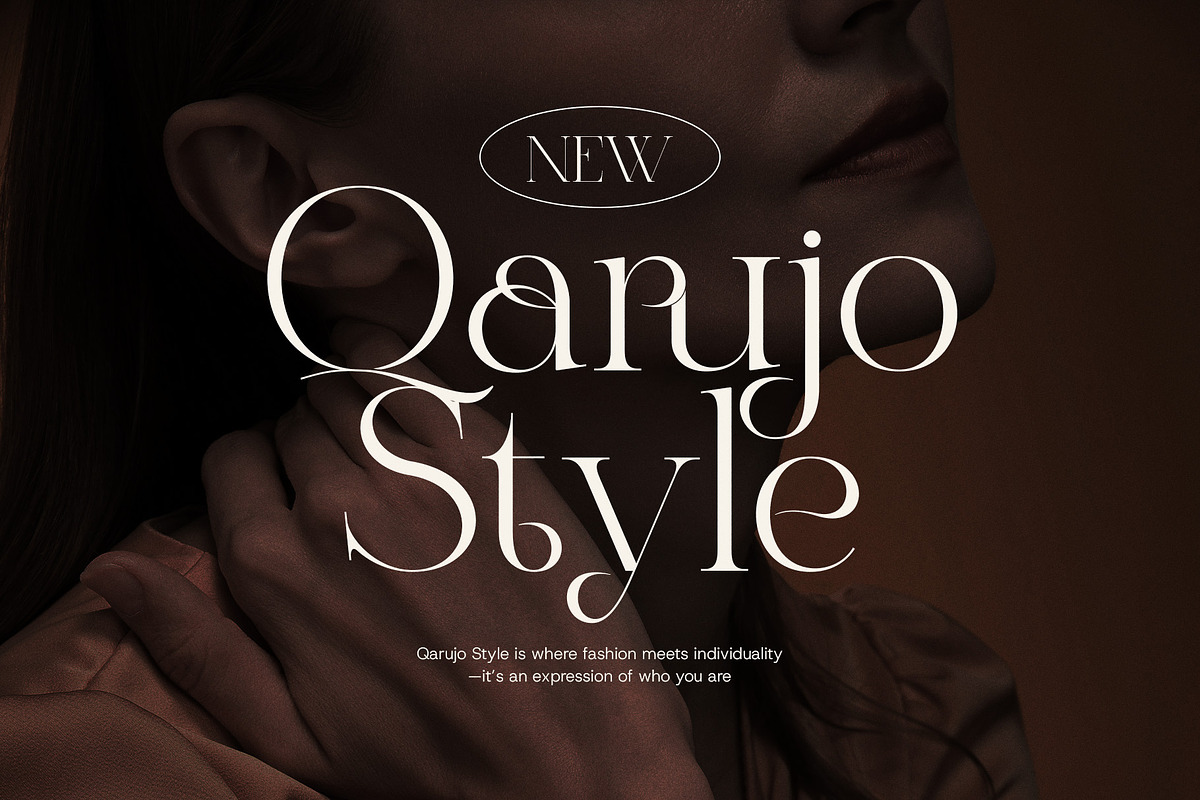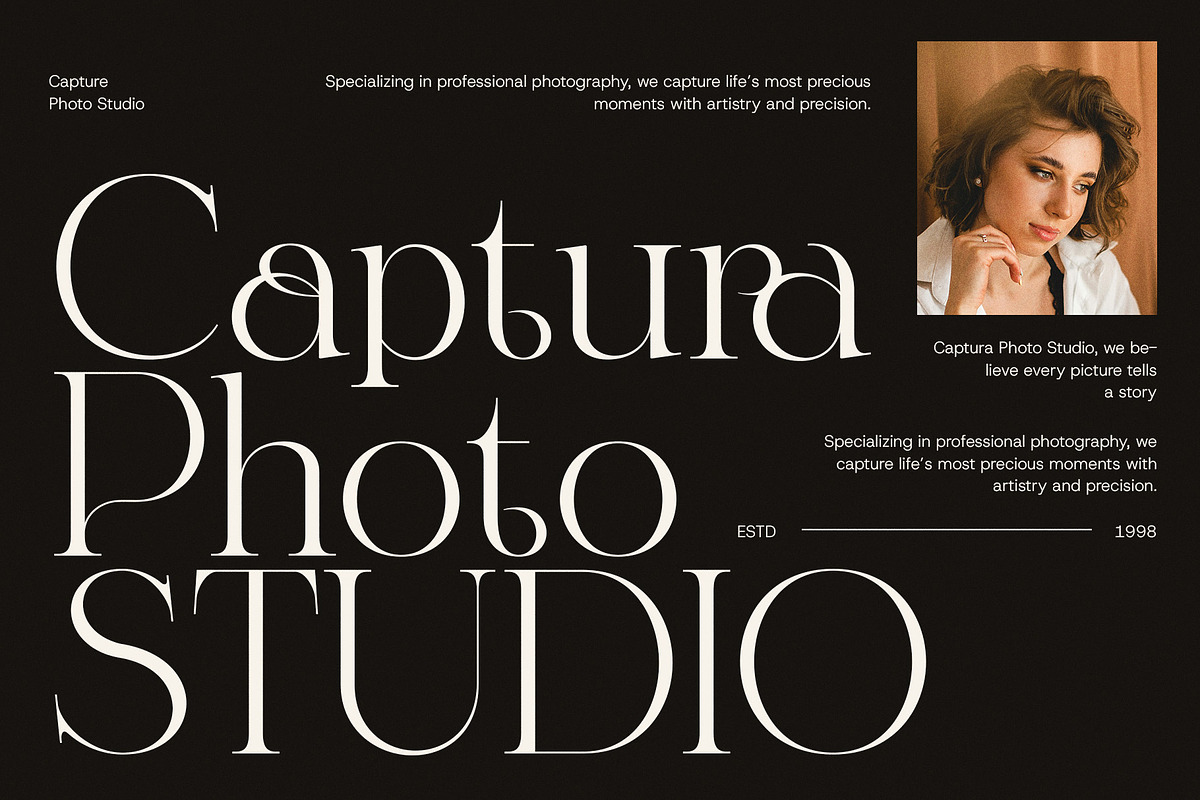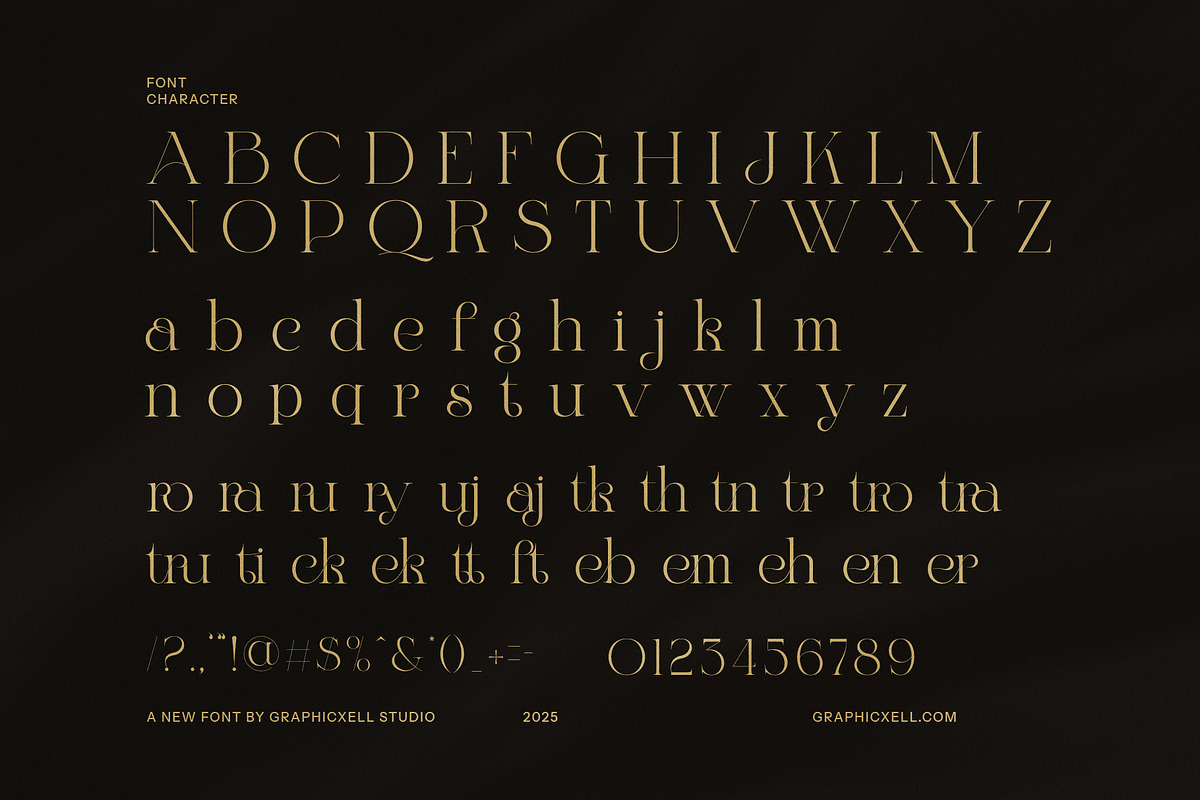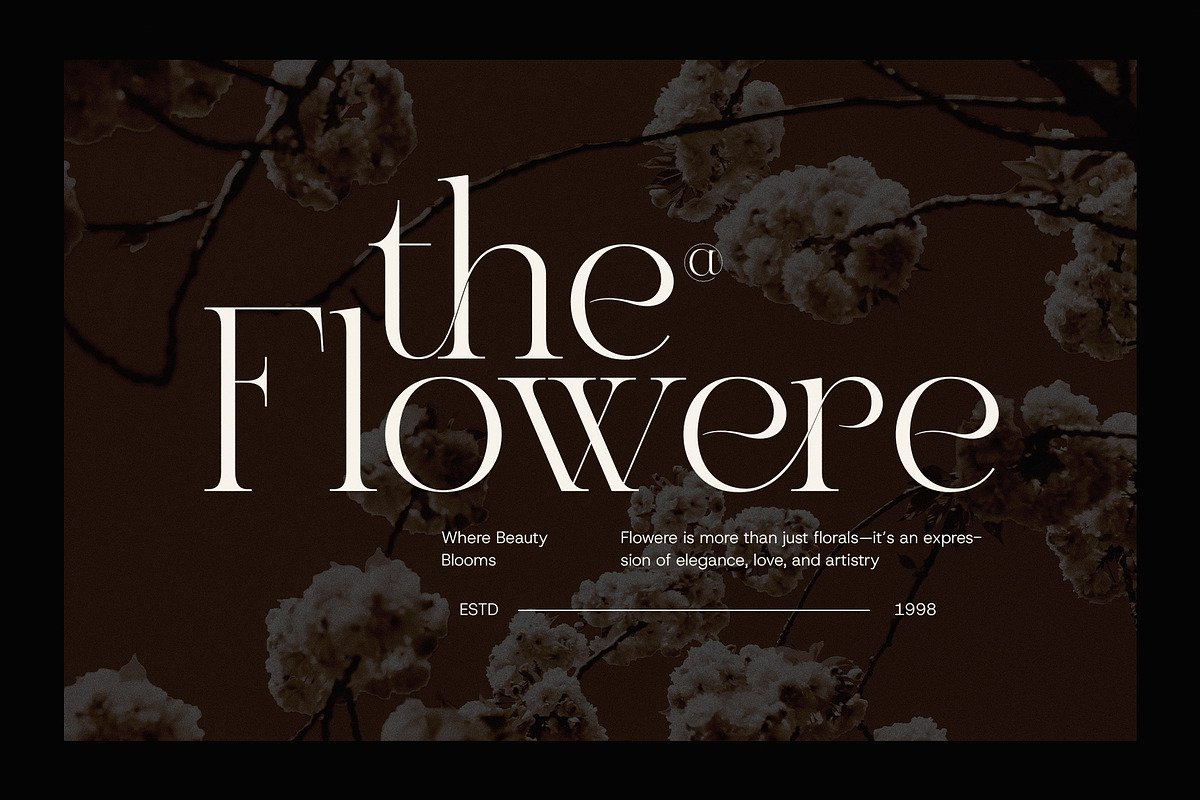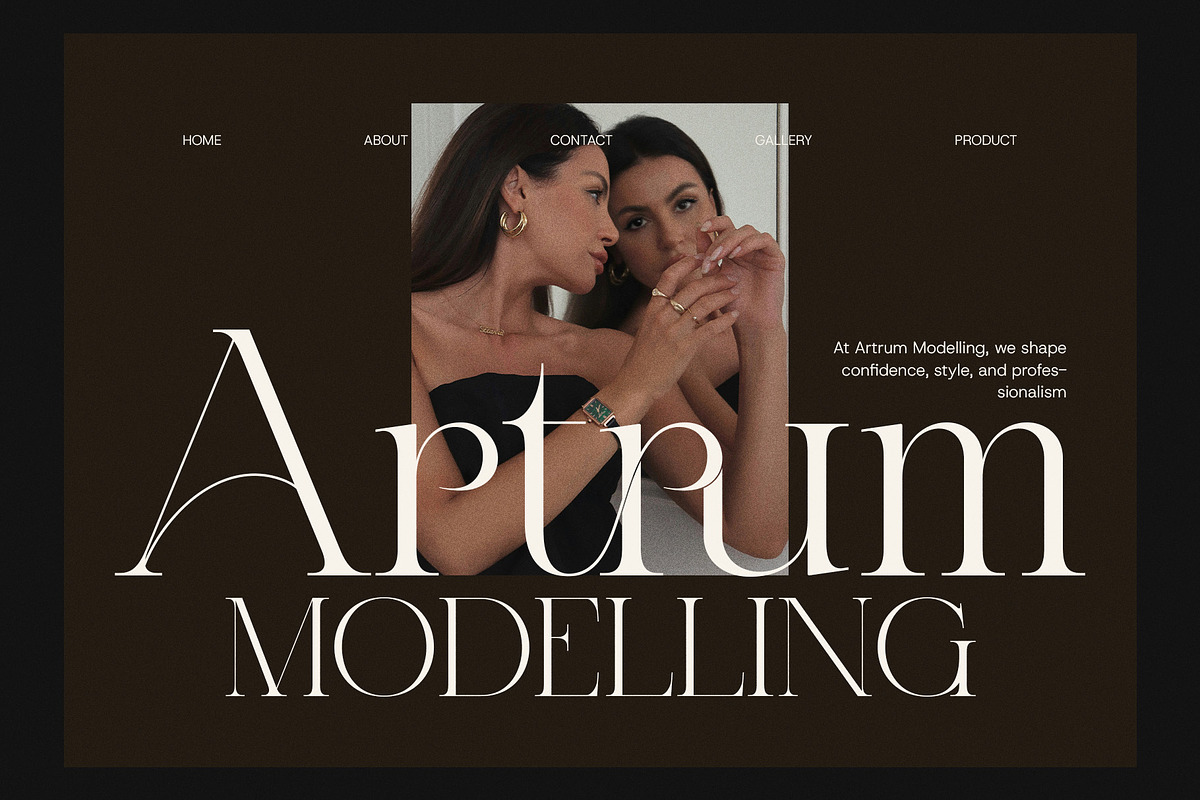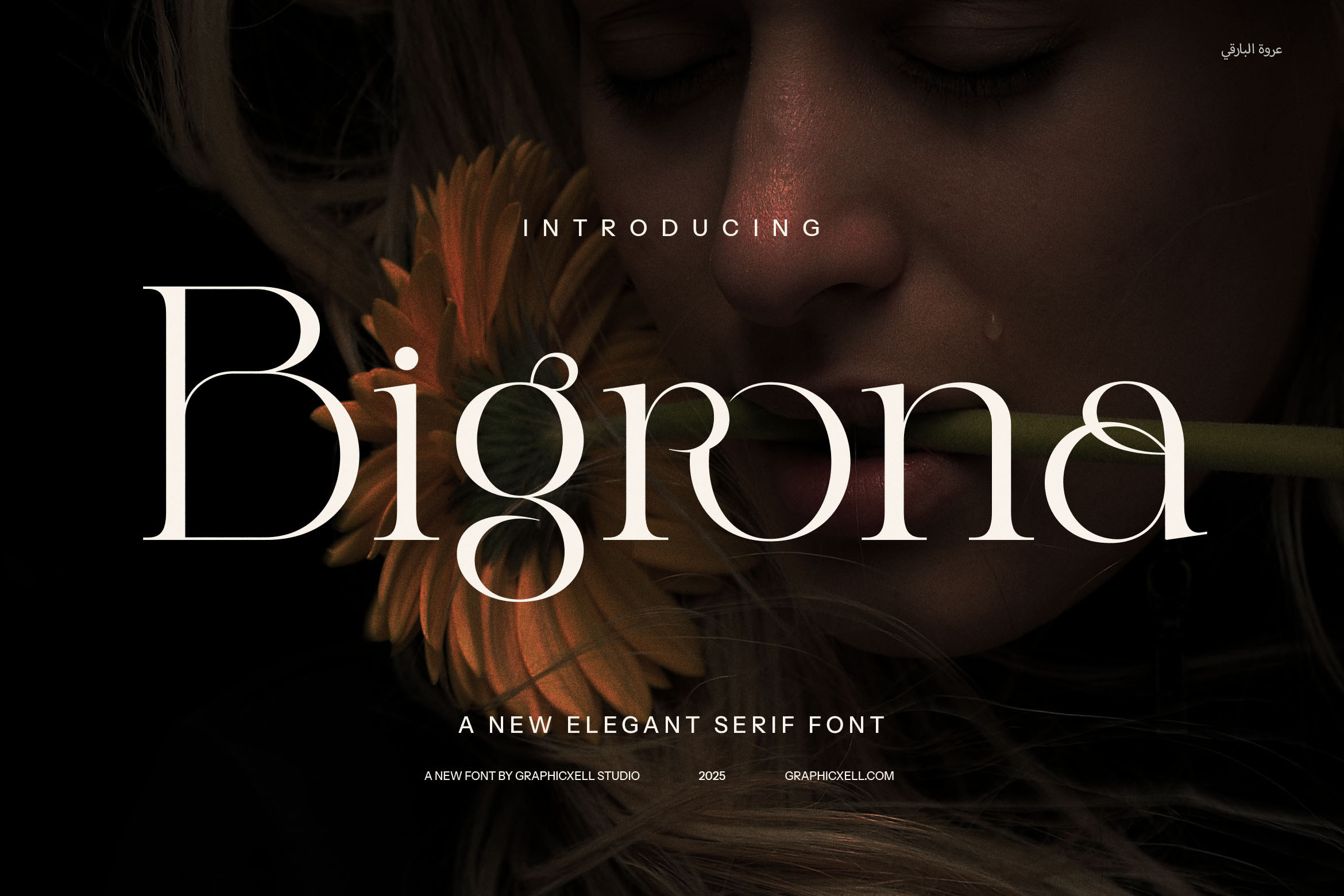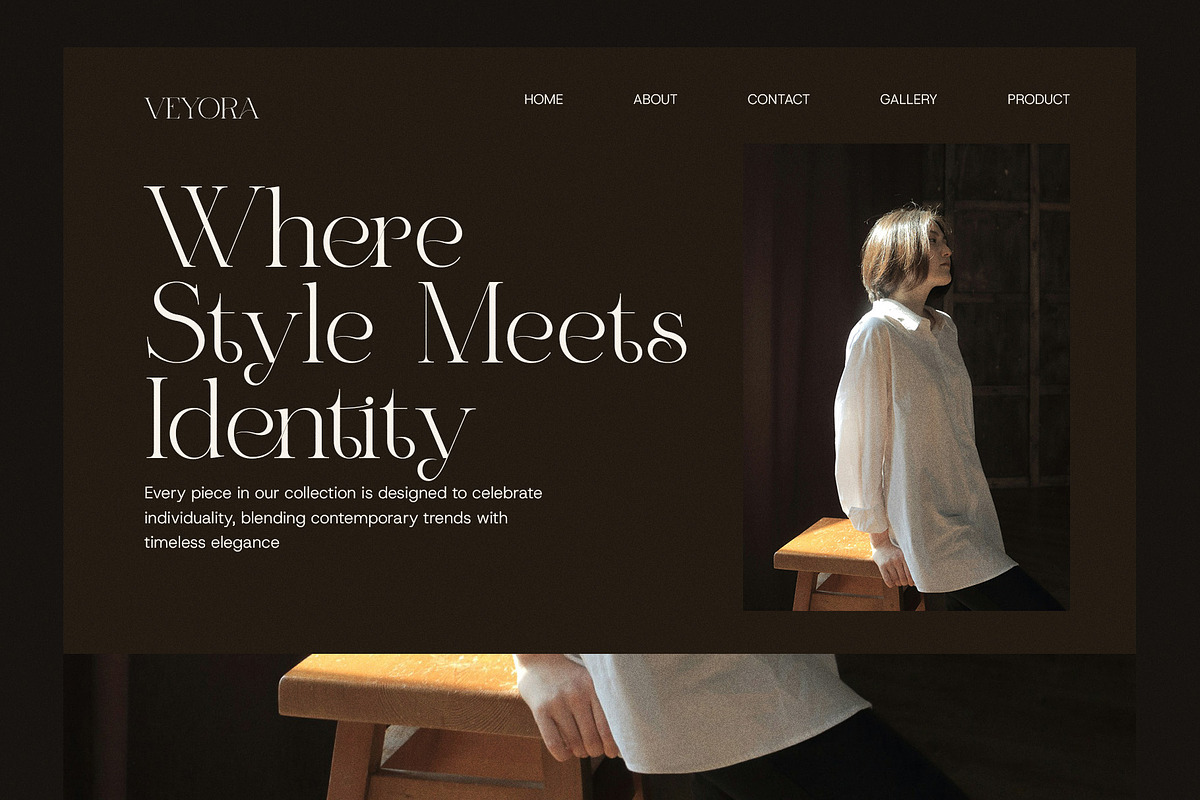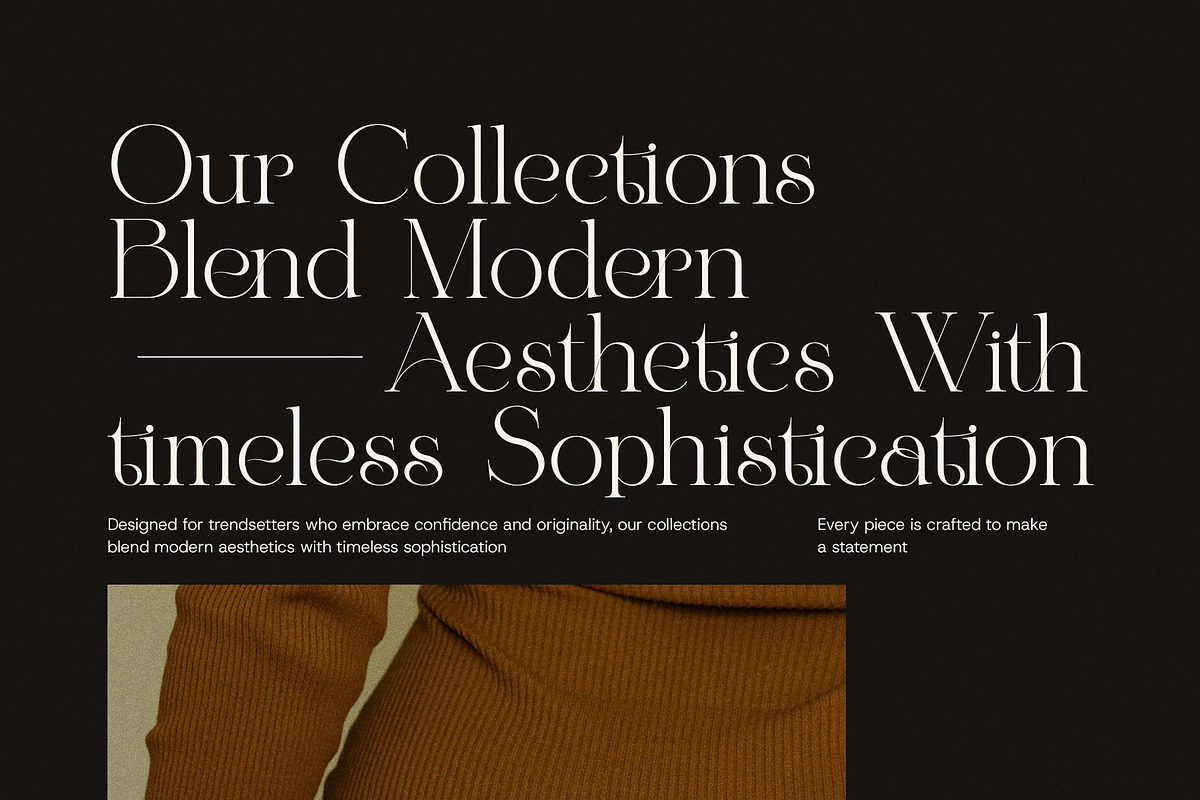
Bigrona Elegant Serif Font
Bigrona Elegant Serif is a striking and sophisticated typeface that seamlessly blends contemporary style with timeless refinement. Designed with precision, this font features graceful curves, sharp serifs, and well-balanced proportions, making it an excellent choice for projects that demand a touch of luxury and elegance.
Perfect for branding, logos, websites, and editorial layouts, Bigrona Elegant Serif enhances any design with its bold yet graceful presence. Its distinctive letterforms create an air of exclusivity, making it ideal for high-end fashion, luxury products, boutique businesses, and gourmet branding. Whether you’re designing a magazine cover, product packaging, or an elegant advertisement, this font exudes confidence and charm.
The high-contrast strokes and refined details of Bigrona Elegant Serif ensure excellent readability while maintaining a stylish and modern appeal. Its versatility allows it to work beautifully across both print and digital media, delivering a polished and professional look every time.
From sophisticated wedding invitations to premium lifestyle branding, this typeface adds a sense of grandeur and refinement to any project. If you’re looking for a font that embodies modern elegance with a bold yet graceful touch, Bigrona Elegant Serif is the perfect choice to elevate your designs and leave a lasting impression.